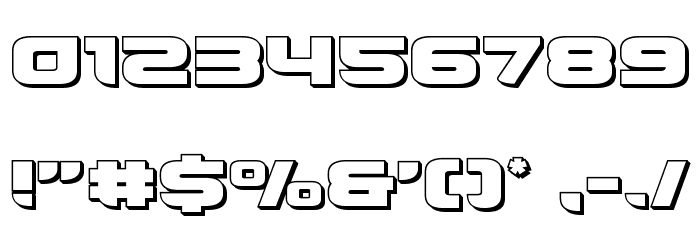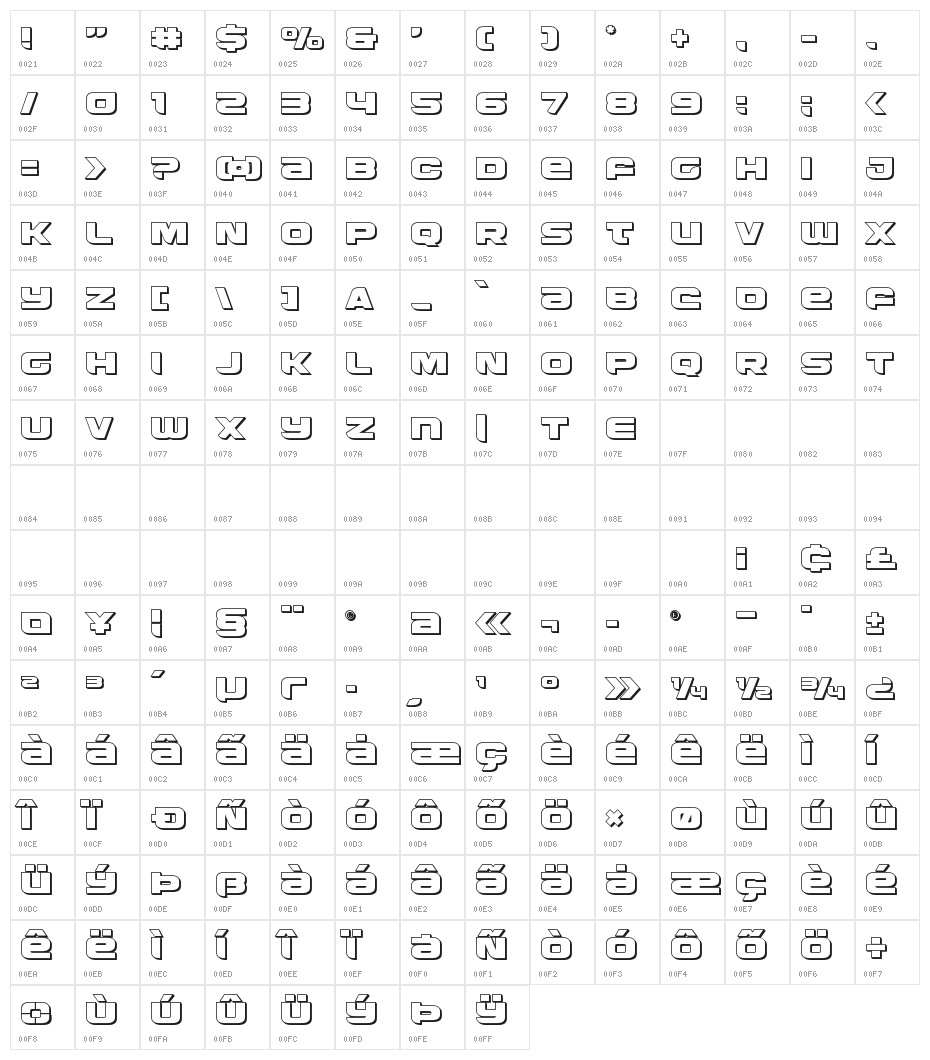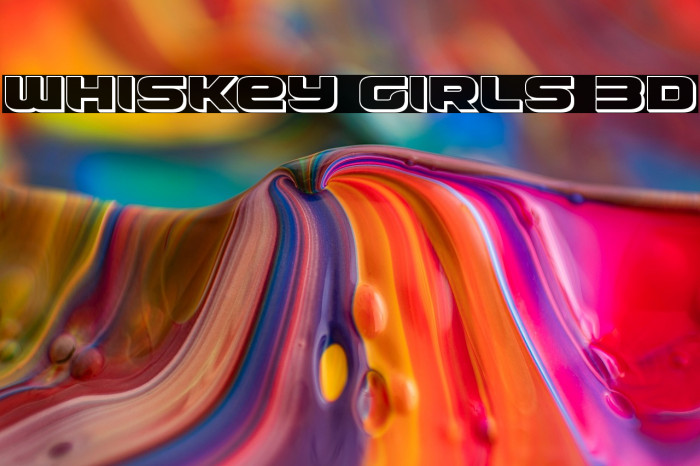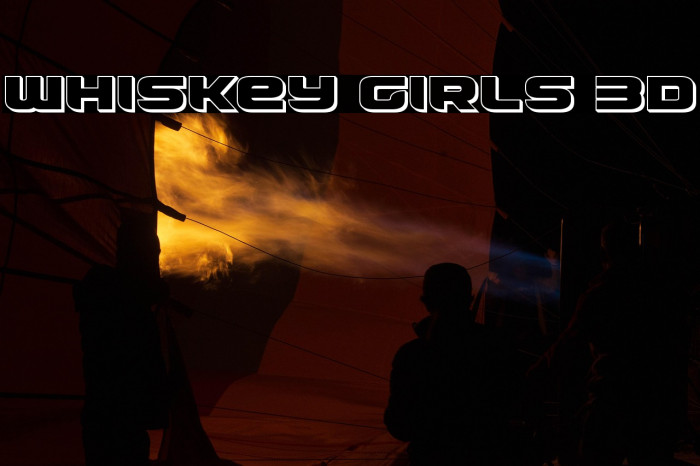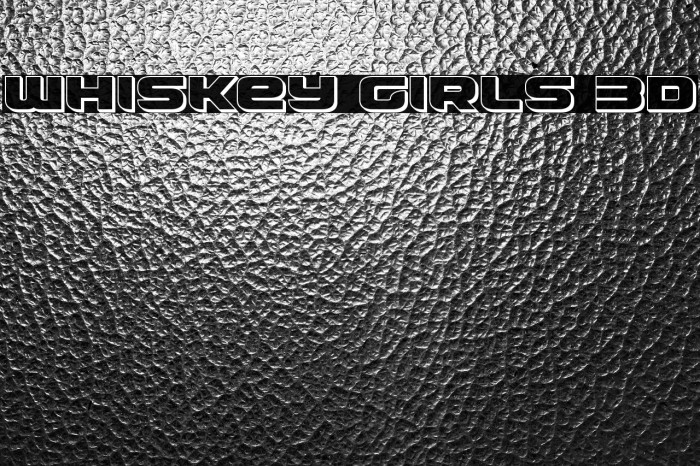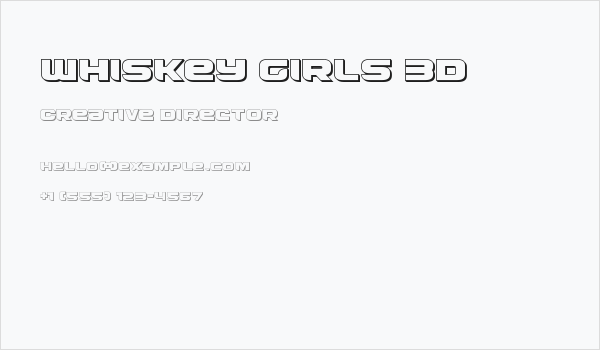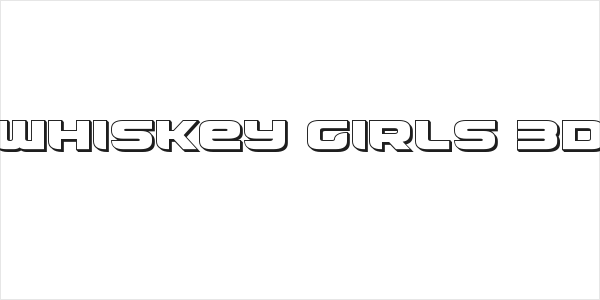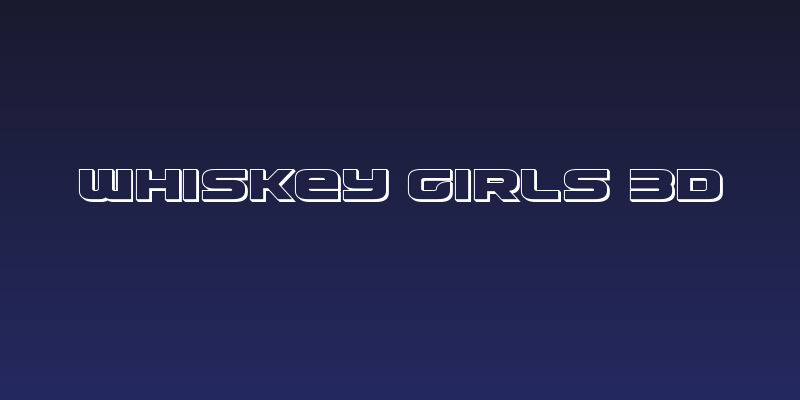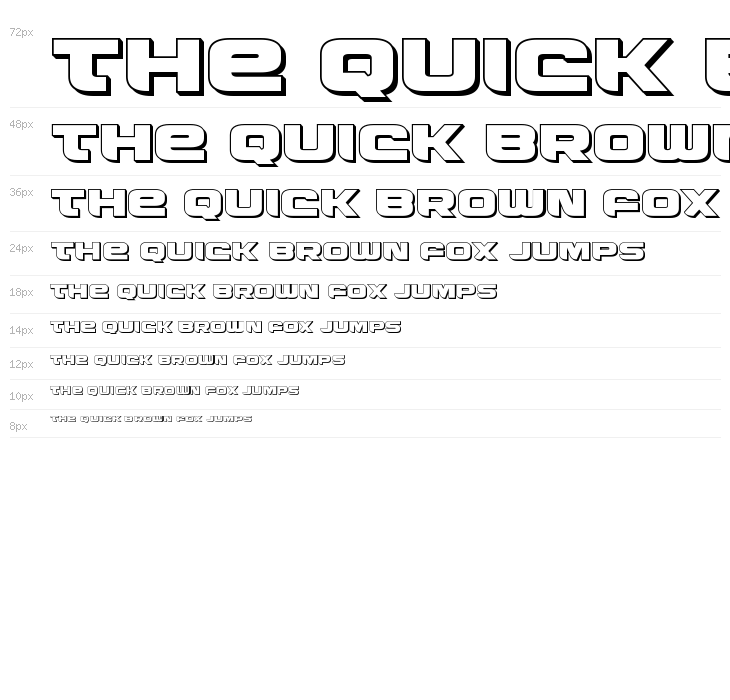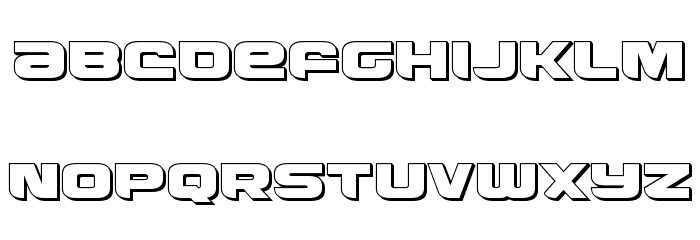
Whiskey Girls 3D Font
Whiskey Girls 3D Description
This font features a bold, three-dimensional appearance with a strong, geometric structure. The characters are outlined, giving them a hollow look that enhances the 3D effect. Each letter and number is crafted with precision, maintaining a consistent width and height throughout. The style is modern and eye-catching, making it suitable for designs that require a standout typeface. The font's unique design is perfect for creating impactful headlines or logos that demand attention. Its distinct outline and shadow effect add depth and dimension, making it ideal for creative projects.